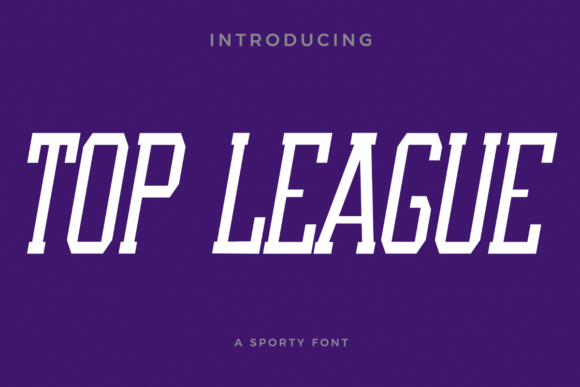
Top League Font: Athletic Slab Serif for Craft Projects
Using Top League Font for Collegiate Pride and University Rivalry Merchandise
Introducing Top League, a one-of-a-kind font capturing the spirit of dynamic sportsmanship, collegiate pride, and fiercely competitive university rivalries, making it an essential asset for crafters creating team spirit gear. As a robust Slab Serif among display Fonts, this typeface lends an athletic aesthetic that translates beautifully onto physical products like varsity-style tote bags, alumni reunion t-shirts, and tailgate signage. When designing merchandise for small businesses or Etsy shops, the visual weight of Top League ensures that school colors and mascots stand out with authority and nostalgia. The thick, blocky serifs provide excellent ink coverage on fabric transfers and heat-transfer vinyl (HTV), reducing the risk of peeling or fading after washing. For sellers focusing on the collegiate niche, this font bridges the gap between vintage Americana and modern athletic wear, allowing you to create designs that feel authentic rather than generic. Whether you are producing custom tumblers for sorority bid day or embroidered patches for local club teams, Top League provides the structural integrity needed for bold, readable text that resonates with fans and students alike.
Creating Readable Product Labels and Packaging with Top League Slab Serif
Top League serves as a powerful anchor in packaging design when utilizing Slab Serif characteristics within commercial Fonts to establish brand recognition on shelves. For handmade sellers producing candles, beard oils, or artisanal snacks, the sturdy geometry of this typeface communicates reliability and masculine energy without sacrificing legibility at smaller sizes. Unlike delicate scripts that can become muddy on textured paper or corrugated cardboard, Top League maintains crisp edges that remain distinct even when printed on kraft paper labels or stamped directly onto packaging. This readability is crucial for product compliance and customer experience; buyers need to instantly recognize the product name and variant. When designing labels for bath bombs or coffee blends, consider using Top League for the primary product title while reserving lighter sans serif fonts for ingredient lists and regulatory text. The contrast creates a professional hierarchy that guides the eye effectively. Furthermore, the font’s inherent strength makes it ideal for "limited edition" or "small batch" stickers, where the typography itself acts as a seal of quality. By leveraging the athletic undertones of Top League, crafters can position their goods as premium, durable, and performance-oriented, appealing to customers who value substance over fleeting trends.
Designing Wedding Welcome Signs and Stationery with Top League Typeface
Crafters incorporating Top League into wedding stationery will find that this Slab Serif adds a unique, spirited twist to traditional matrimonial Fonts typically dominated by flowing scripts. While weddings are often associated with elegance, many couples now seek themes that reflect shared passions, such as university alma maters, favorite sports teams, or outdoor adventures. Top League offers a distinctive alternative to standard calligraphy for welcome boards, seating charts, and bar menus, providing a grounded, confident backdrop for romantic details. Imagine a laser-cut wood welcome sign where the couple’s names are rendered in Top League, flanked by delicate floral illustrations or fine-line script; the juxtaposition creates a balanced, modern farmhouse aesthetic that photographs beautifully. For printable wedding templates sold on digital marketplaces, this font allows you to tap into the growing demand for non-traditional, personality-driven nuptials. Its bold forms ensure high visibility from a distance at venues, ensuring guests can easily navigate the event. Additionally, because Top League captures the spirit of dynamic sportsmanship, it is perfect for backyard weddings, stadium receptions, or events honoring athletic partnerships, giving your stationery portfolio a versatile edge that appeals to diverse client bases.
Farmhouse Wall Art and Printable Decor Using Top League Display Font
Digital download creators and wall art sellers can utilize Top League as a striking Slab Serif option within decorative Fonts to produce high-impact typographic prints. The font’s architectural structure mimics the lettering found on historic gymnasiums and vintage scoreboards, making it inherently suitable for industrial, rustic, and retro home decor styles. When designing SVG files for Cricut or Silhouette users, the solid construction of Top League simplifies the weeding process, as there are no fragile interior islands or hairline strokes to tear during removal. This practical advantage makes it a favorite among hobbyists creating wooden signs, metal plaques, and canvas art. For printable wall art, the font scales exceptionally well, retaining its sharpness whether printed as an 8x10 frameable quote or a large-format banner. Consider pairing Top League with minimalist line art or botanical elements to soften its athletic edge for nursery or living room applications. Keywords like "vintage varsity," "retro college," and "industrial typography" align perfectly with designs featuring this typeface, helping your listings rank for specific buyer intents. By offering variations that highlight Top League’s bold personality, you cater to customers looking for statement pieces that evoke nostalgia and strength without appearing overly aggressive.
Optimizing Cutting Machine Projects and Vinyl Decals with Top League
Vinyl decal makers and sticker shop owners will appreciate how Top League functions as a user-friendly Slab Serif among adhesive-focused Fonts designed for clean cutting and easy application. The uniform stroke width and lack of extreme contrast mean that every letter cuts consistently, preventing blade drag issues common with variable-width serifs. This consistency is vital when producing car decals, laptop stickers, or water bottle names where precision matters. For crafters selling pre-made vinyl letters or monograms, Top League offers a gender-neutral, sporty option that fills a gap between overly feminine cursive and stark block letters. When preparing files for sale, ensure you test cut at various sizes; Top League generally performs well down to half-inch heights due to its open counters and stable base. For multi-layer designs, the font’s solid shapes allow for easy registration marks and shadow layers, enabling you to create dimensional effects that pop against contrasting backgrounds. Remember to advise customers in your product descriptions about transfer tape compatibility; the bold surface area of Top League adheres readily to most tapes, reducing frustration during the application phase. By highlighting these technical benefits alongside the aesthetic appeal, you demonstrate expertise and build trust with fellow makers who prioritize production efficiency.